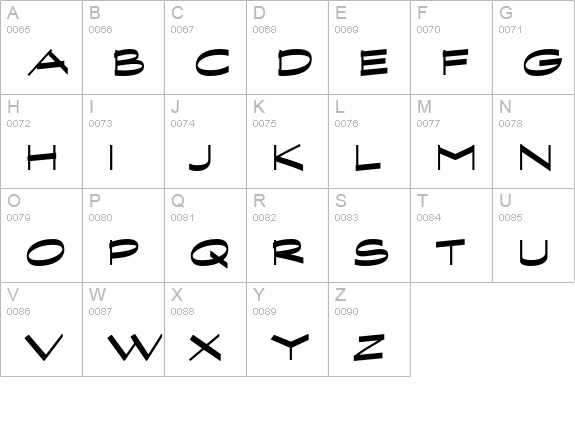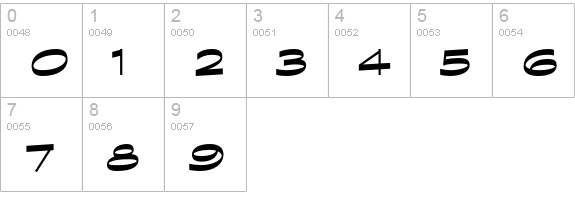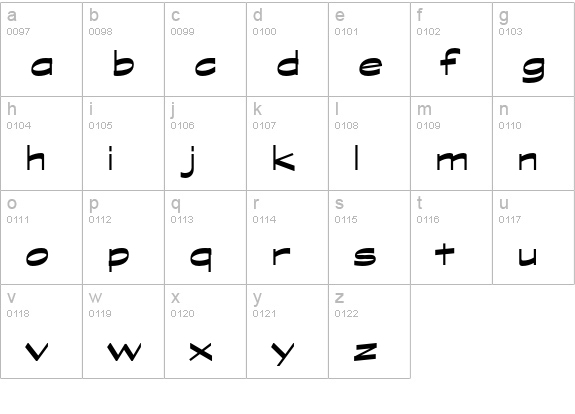
Graphite Std Bold Wide Font Details
Graphite Std Bold Wide is a strong, high-contrast, extended-width variant in the Graphite typeface family \xE2\x80\x94 well suited to headlines, attention-grabbing titles, and strong calls-to-action.
Graphite Std Bold Wide is a modern and stylish font that exudes confidence and strength. With its bold lines and wide characters, this typeface commands attention and makes a powerful statement. Perfect for headlines, titles, and branding, Graphite Std Bold Wide adds a touch of sophistication to any design project. And the best part? Graphite Std Bold Wide is available for free download at FontsMarket.com. Get your hands on this versatile and eye-catching font today and take your designs to the next level.